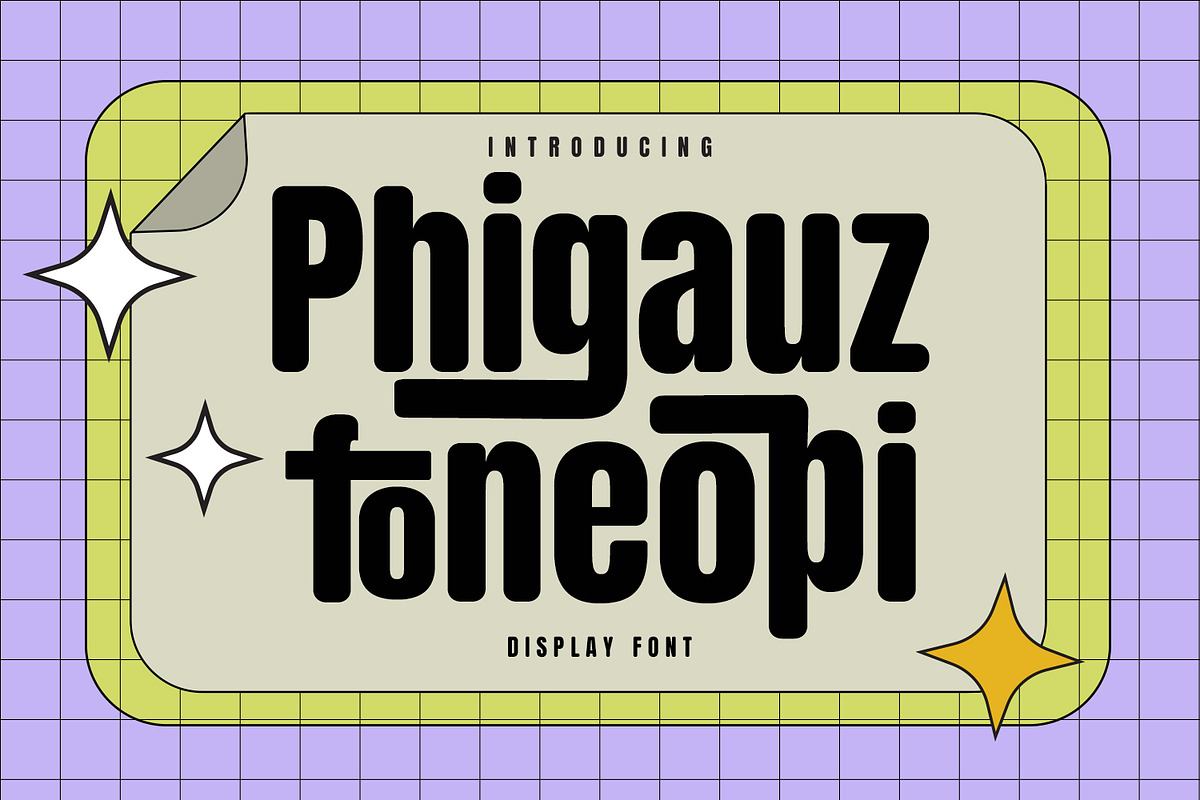
You must purchase this font for commercial use. However, you can download Phigauz Foneopi Sans Serif Rounded Font Free Download for testing purposes. Phigauz Foneopi is a modern sans-serif font with rounded edges, offering a clean and approachable look. Its smooth, geometric design makes it perfect for logos, branding, websites, social media graphics, and any project that requires a friendly and contemporary touch.
The rounded characters of Phigauz Foneopi add a soft, welcoming feel while maintaining excellent readability and versatility. Whether you're designing for a tech brand, a creative agency, or a product that requires a modern yet approachable font, this typeface adds a polished, stylish look to your typography.